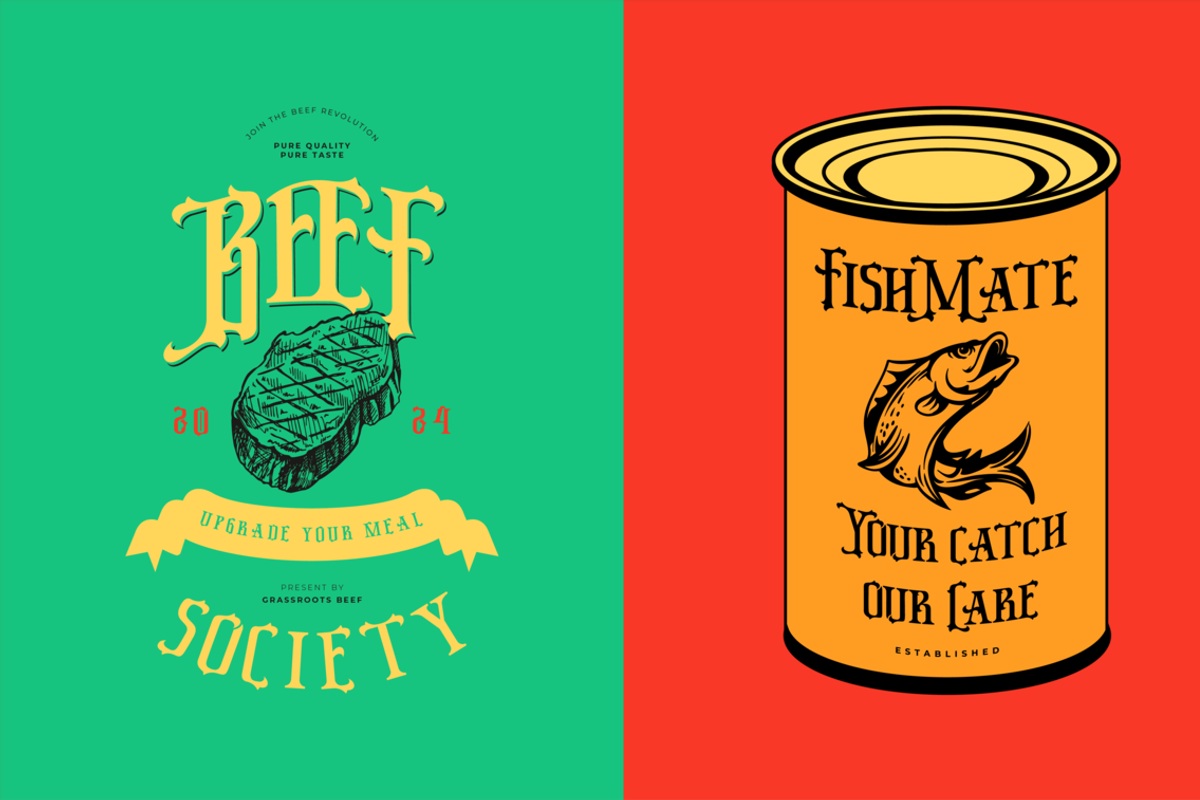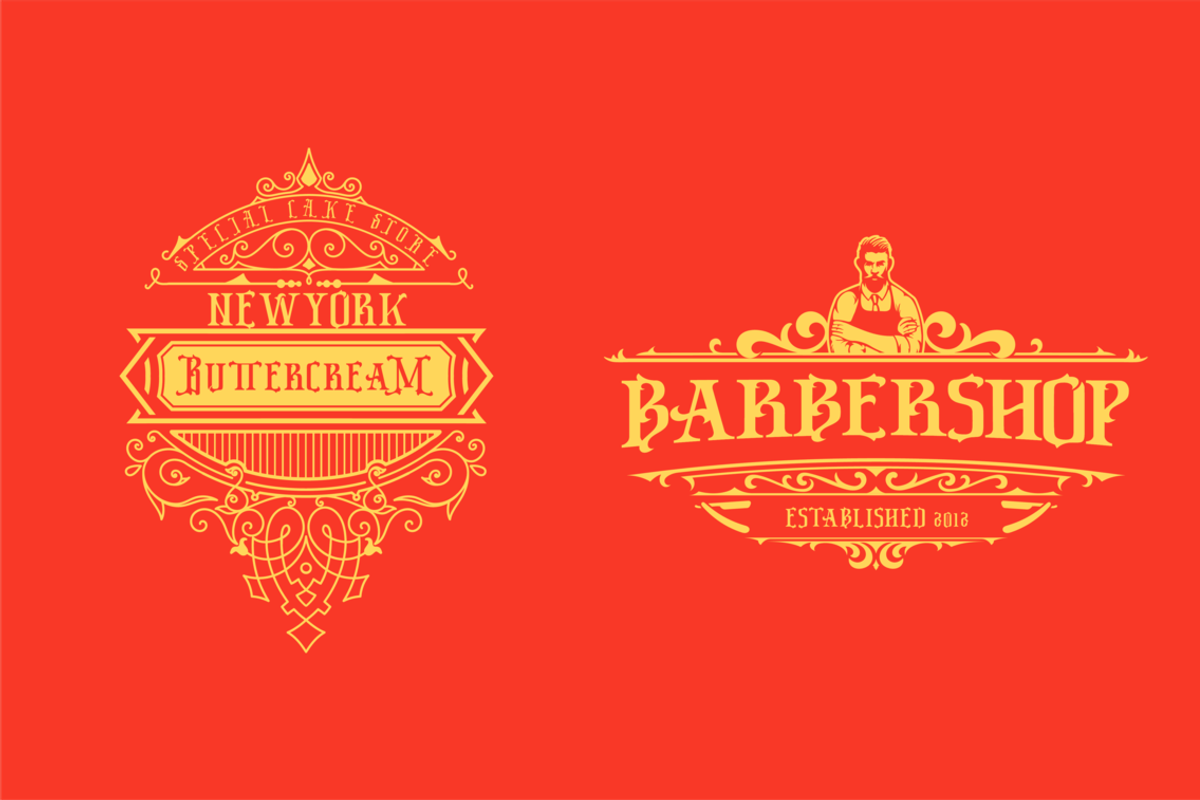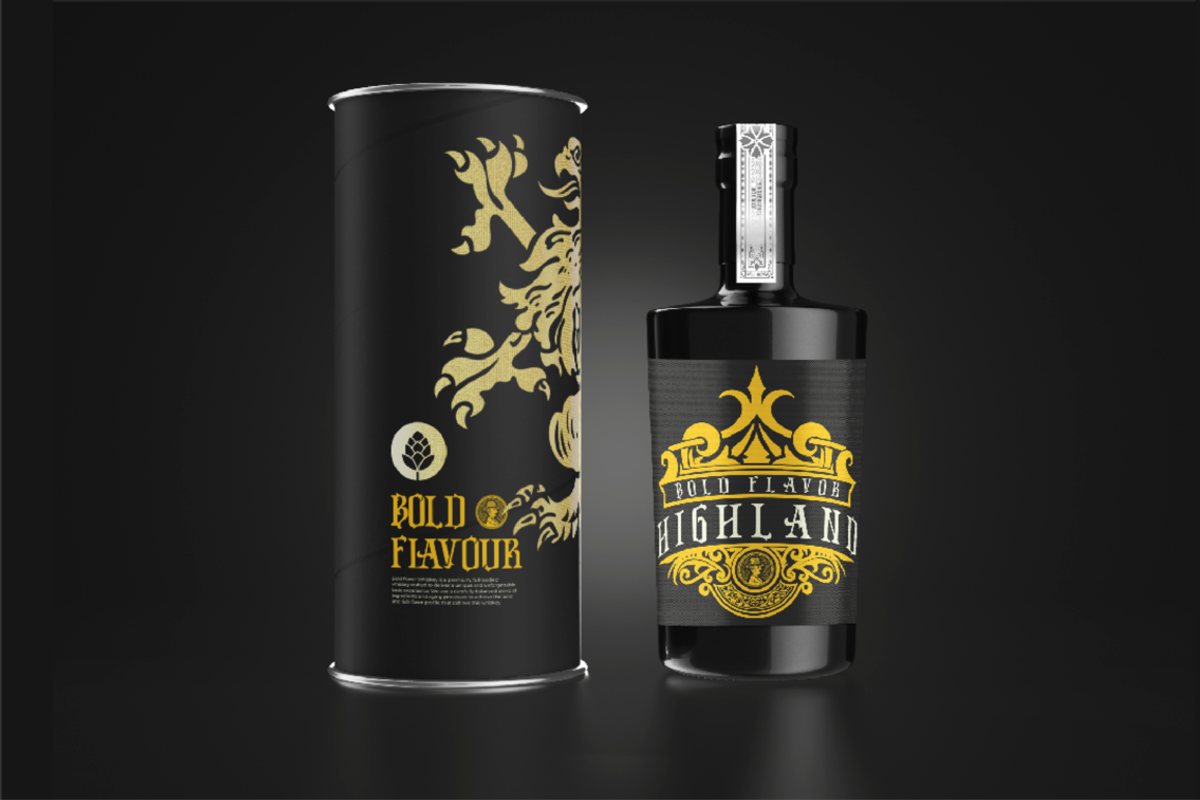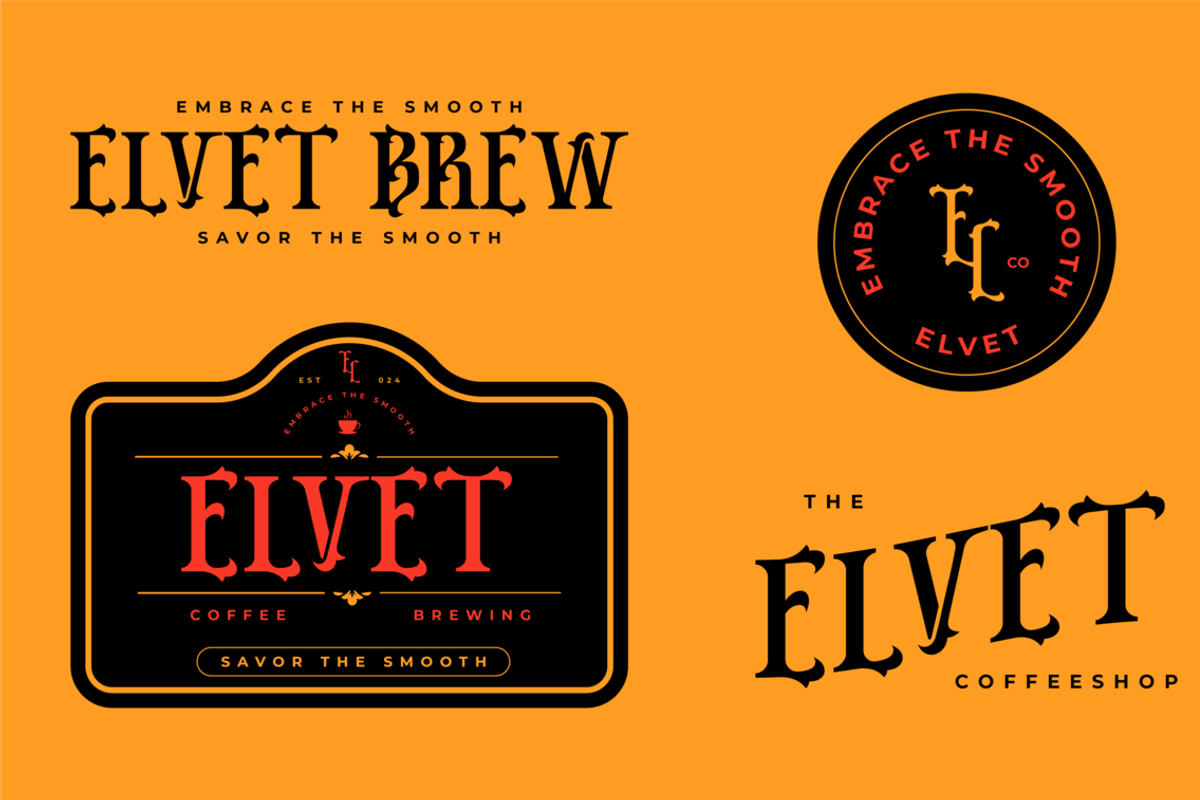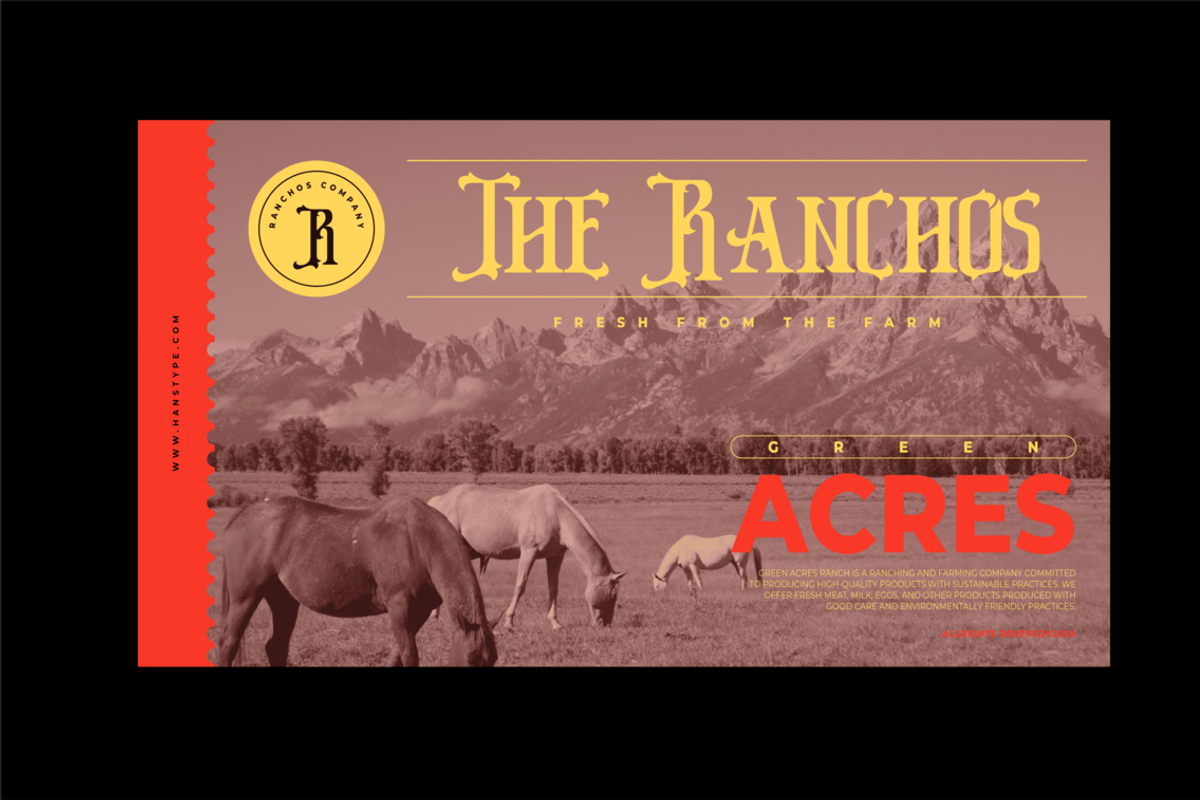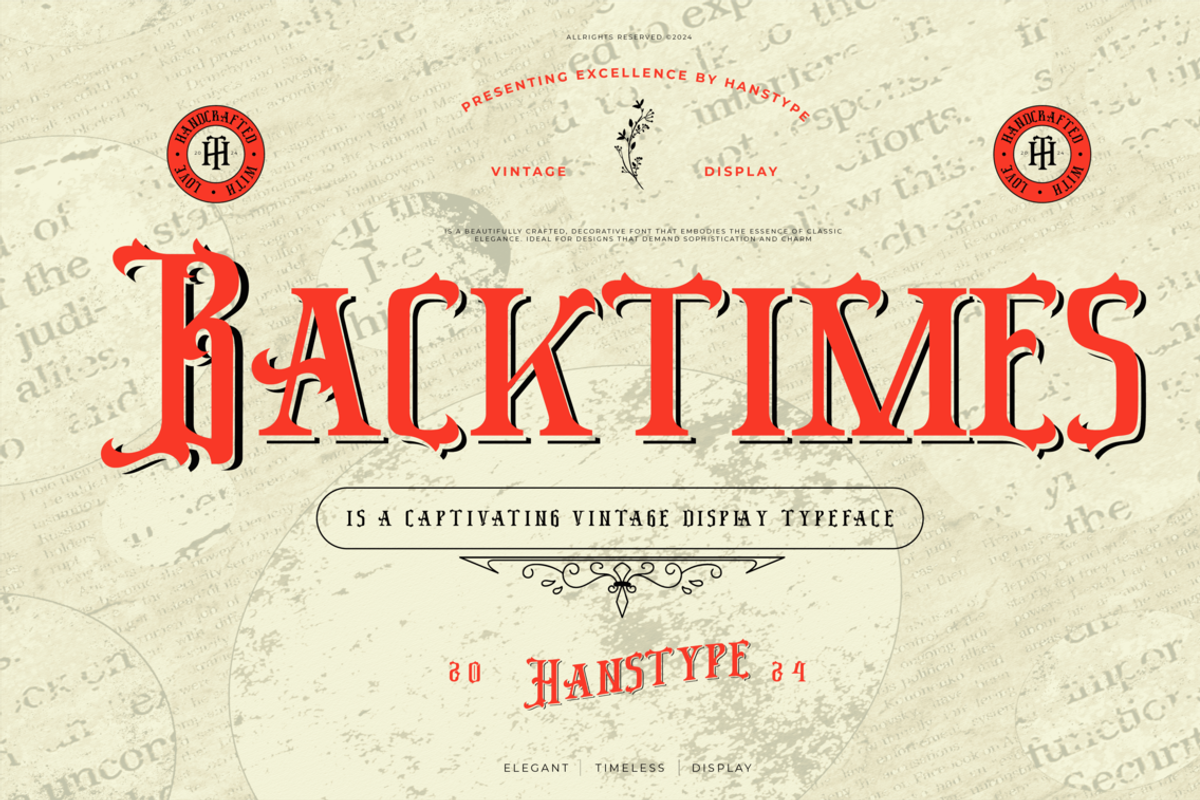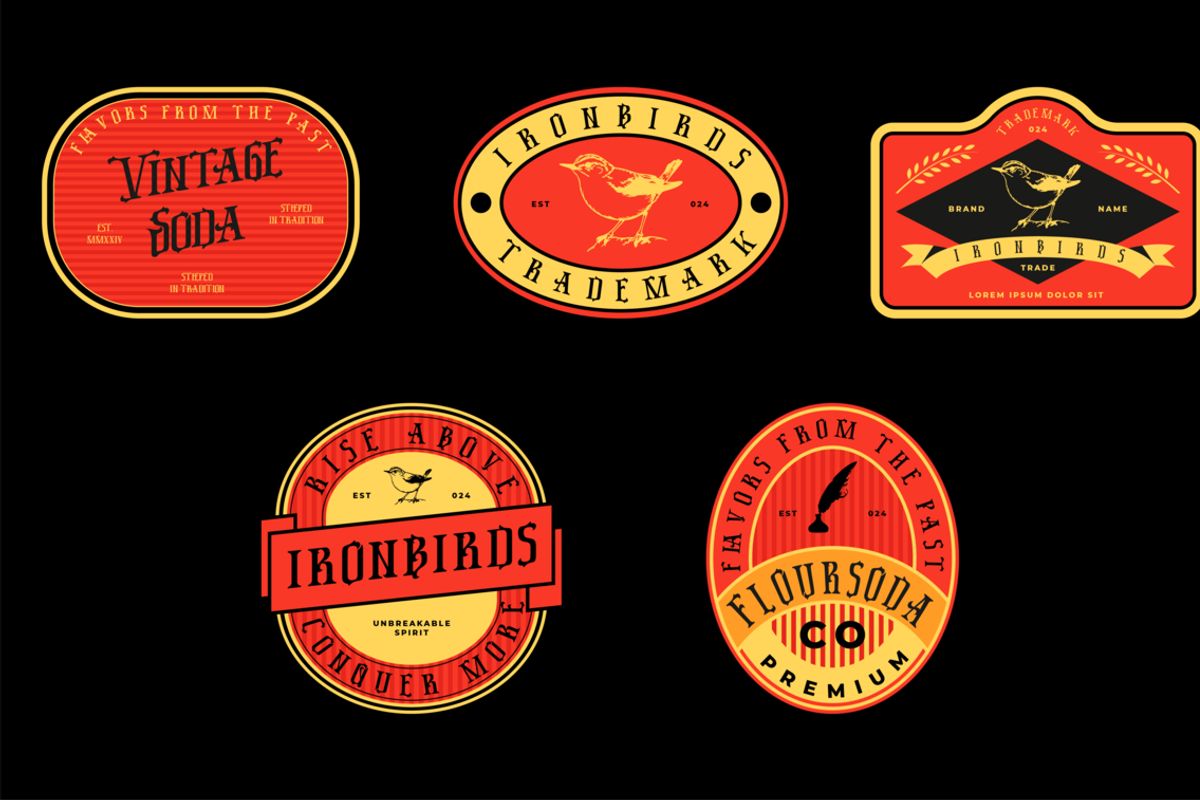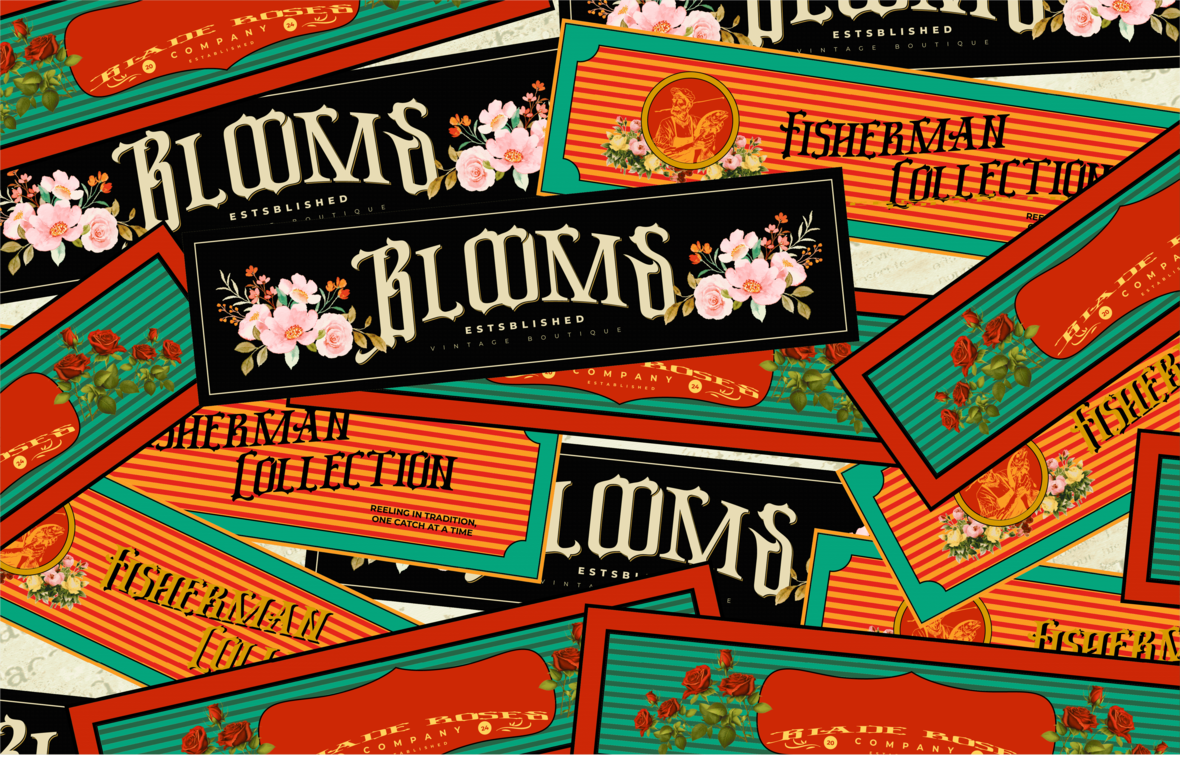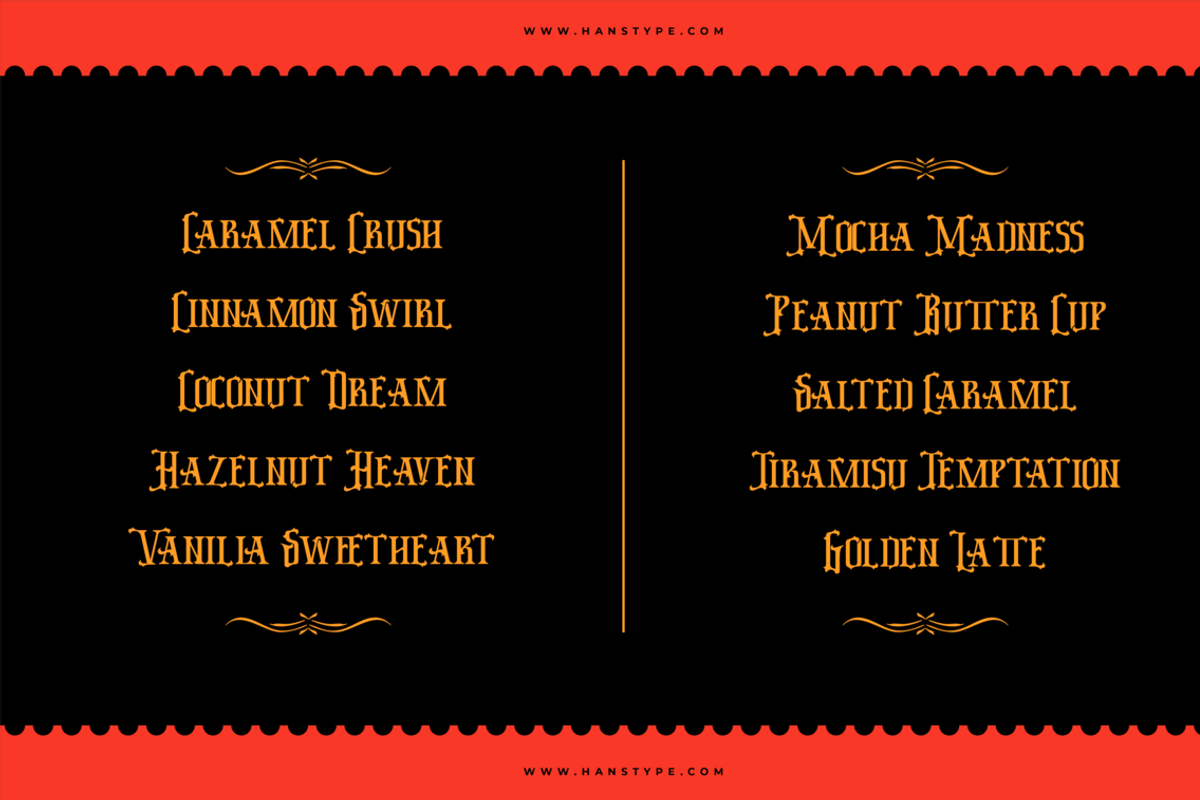
Backtimes - Vintage Display Font
Backtimes Font is a captivating vintage display typeface that effortlessly blends the charm of the past with the contemporary flair of modern design. Inspired by the golden age of typography, this font evokes the nostalgia of classic signage, retro advertisements, and old-school craftsmanship. With its bold, yet refined letterforms, Backtimes brings a sense of history and sophistication to any design.